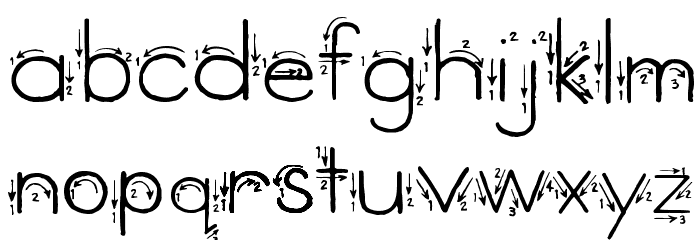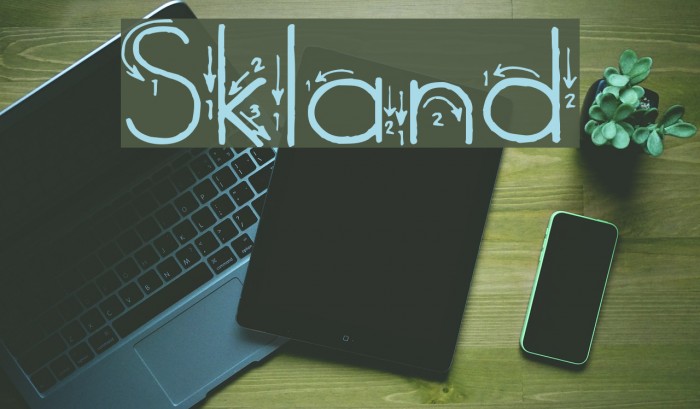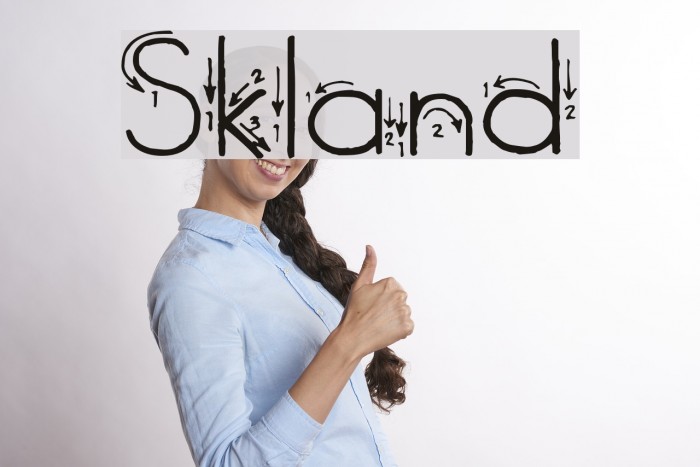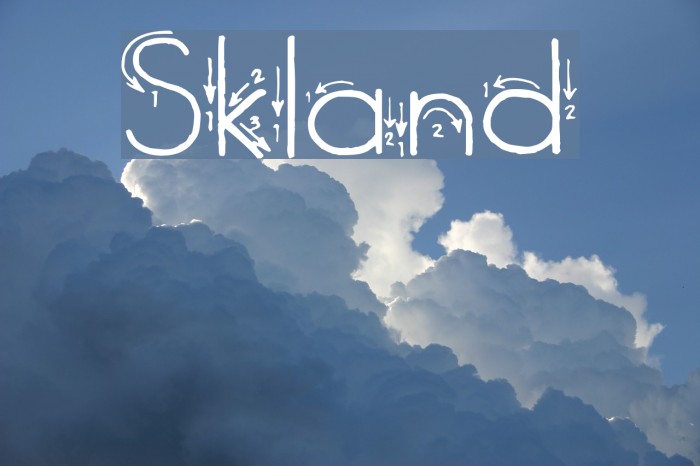
Skyland Font
This font features a unique and creative design with a playful, hand-drawn aesthetic. Each character is adorned with small, whimsical arrows and numbers, giving it a distinctive, quirky appearance. The uppercase and lowercase letters maintain a consistent style, with rounded edges and a casual, informal feel. The font includes a full set of numerals and a selection of special characters, all following the same decorative theme. This font is ideal for projects that require a fun and engaging look, such as children's books, playful branding, or creative posters.
A playful, hand-drawn font with whimsical arrows and numbers.
- Proposed Projects: Ideal for children's books, playful branding, creative posters, and informal invitations.